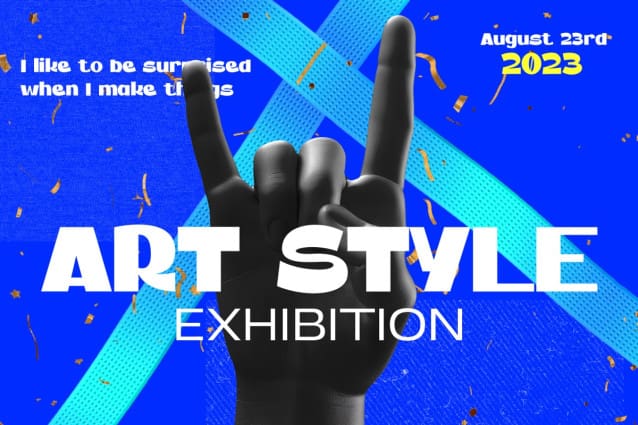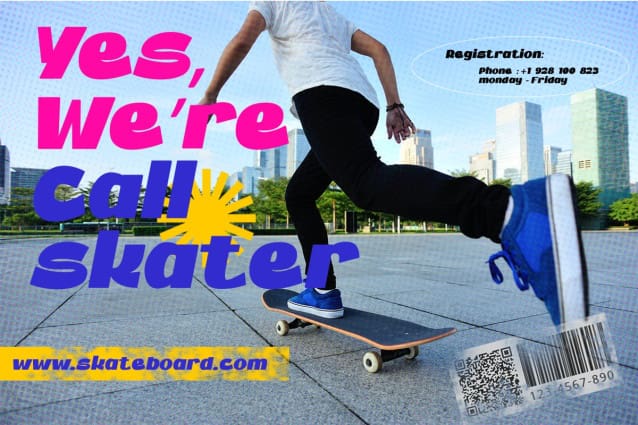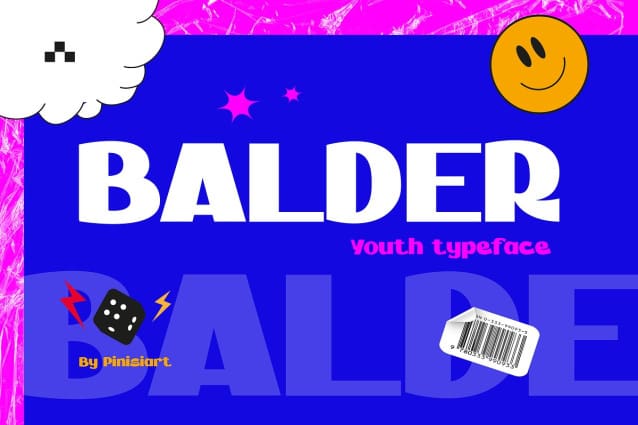
Balder Display Font
Balder Display Font, is a chunky, comic, and cartoon display font. With its neat and joyful personality, this font will enhance any project you wish to create!